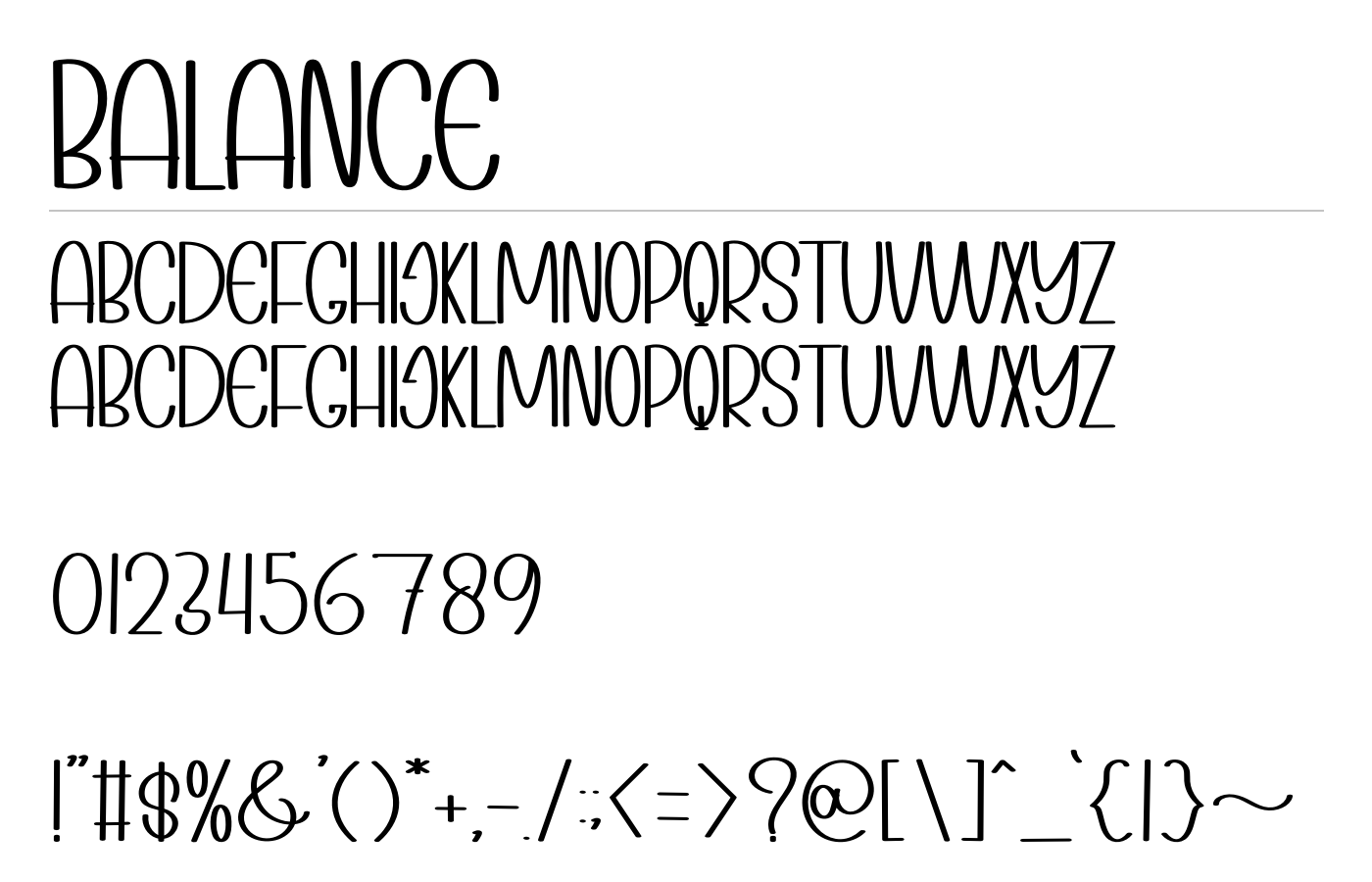
Balance Font is a tall, narrow sans serif with a playful and quirky personality, featuring uneven strokes and subtle curves that give it a hand-drawn feel. Its light weight and condensed width make it ideal for creative headlines, branding, or casual designs where a unique, approachable style is desired. This font works well in projects that need a distinctive, friendly look without sacrificing legibility.
Balance Font
About Balance Font